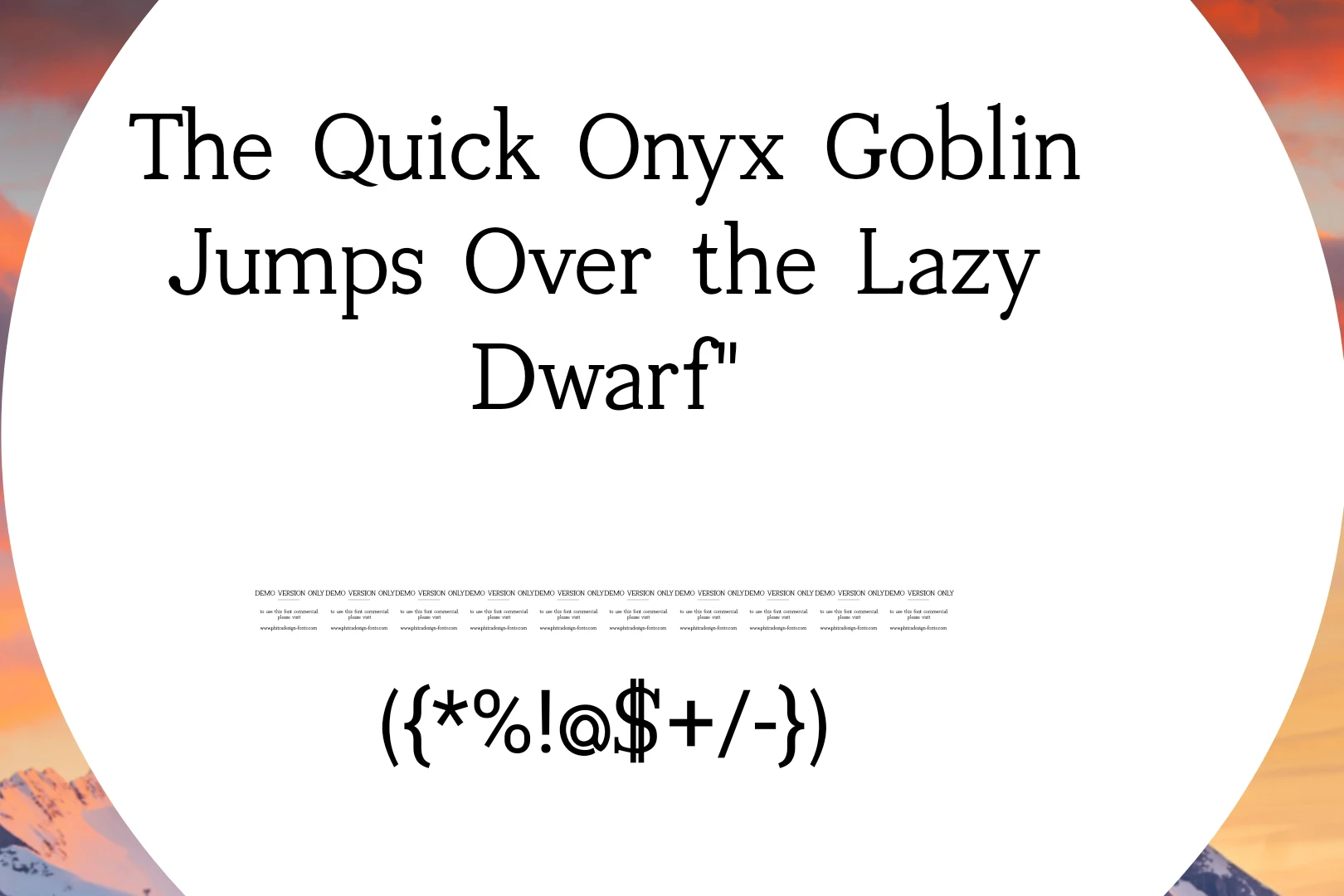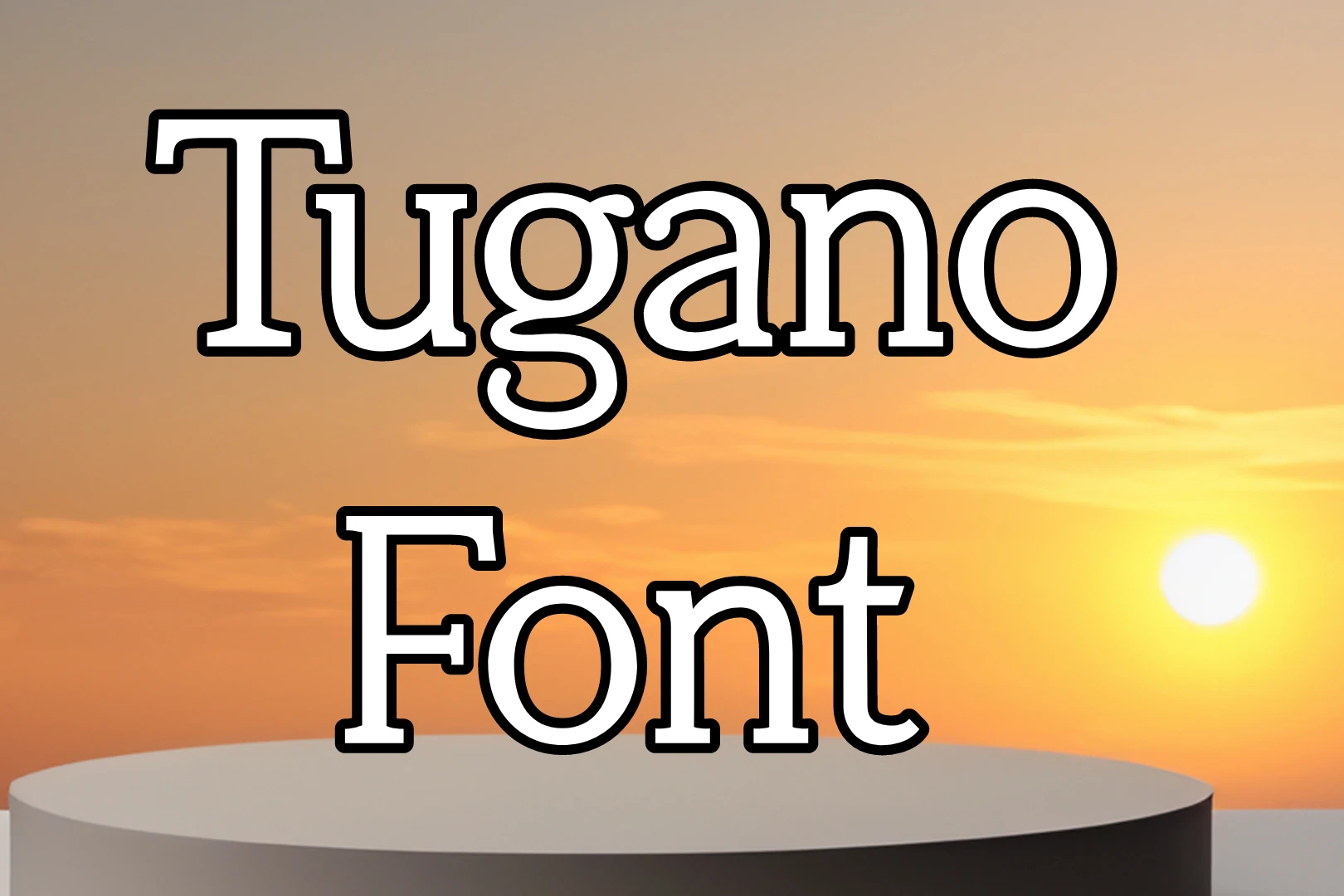
Tugano Font is a highly versatile typeface that finds application in numerous contexts. It offers a range of stylistic options and can be used in diverse design projects.
It is renowned for its versatility and adaptability. Its flexibility allows it to be employed in a wide range of design projects, including logos, product packaging, website headings, and posters. Whether it’s for print or digital media, the font’s readability and legibility make it an excellent choice.
One of the notable aspects of this font is the breadth of stylistic options it provides. With different weights and special characters available, designers can create unique and visually appealing compositions. The font’s modern and elegant aesthetic has made it a popular choice among graphic designers. You can express different emotions and styles based on the specific context and purpose of a design. This adaptability allows designers to effectively convey the desired message and evoke the intended response.
In addition to its versatility and visual appeal, it enhances the overall aesthetics of various design applications. Its usage can significantly enhance the visual appeal of a project and contribute to effective communication.
Uses of Tugano Font
Tugano Font is widely used across various design applications due to its versatility, readability, and aesthetic appeal. Its usage extends to different media and design categories, allowing designers to effectively communicate their message and elevate the visual appeal of their projects.
One common usage of Tugano Font is in logo design. Whether it’s for a startup or an established brand, Tugano Font offers the flexibility to create unique and memorable logo designs. The font’s versatile nature allows designers to tailor its style to match the brand’s personality and values, resulting in a cohesive and impactful visual identity.
Another prominent application of Tugano Font is in product packaging. The font’s modern and elegant aesthetic enhances the overall presentation of the packaging, catching consumers’ attention and effectively communicating key product information. Whether it’s for food and beverage products, cosmetics, or other consumer goods, Tugano Font can elevate the packaging design and create a visually appealing product presence.
Tugano Font View
Can Tugano Font be customized to match specific design aesthetics?
Yes, You can be customized to match specific design aesthetics. Designers can adjust their style, weight, and size to align with the overall look and feel of a project, ensuring visual cohesion.